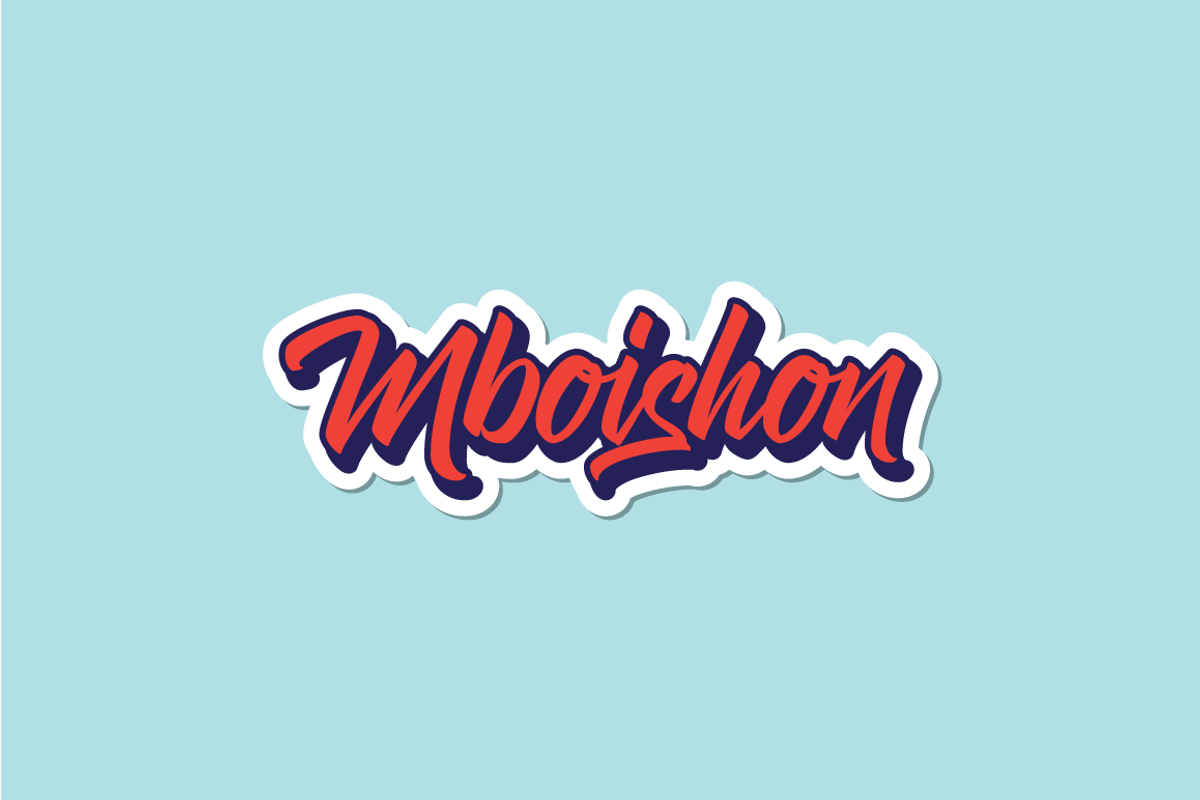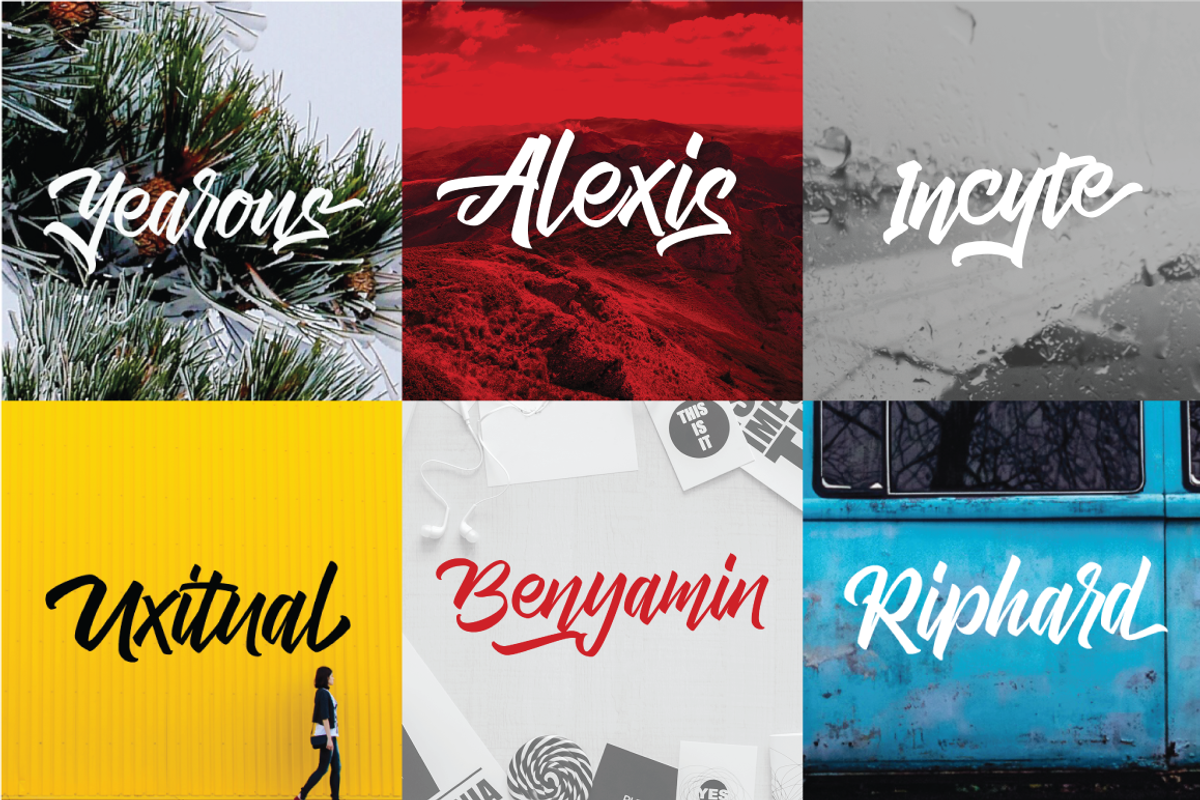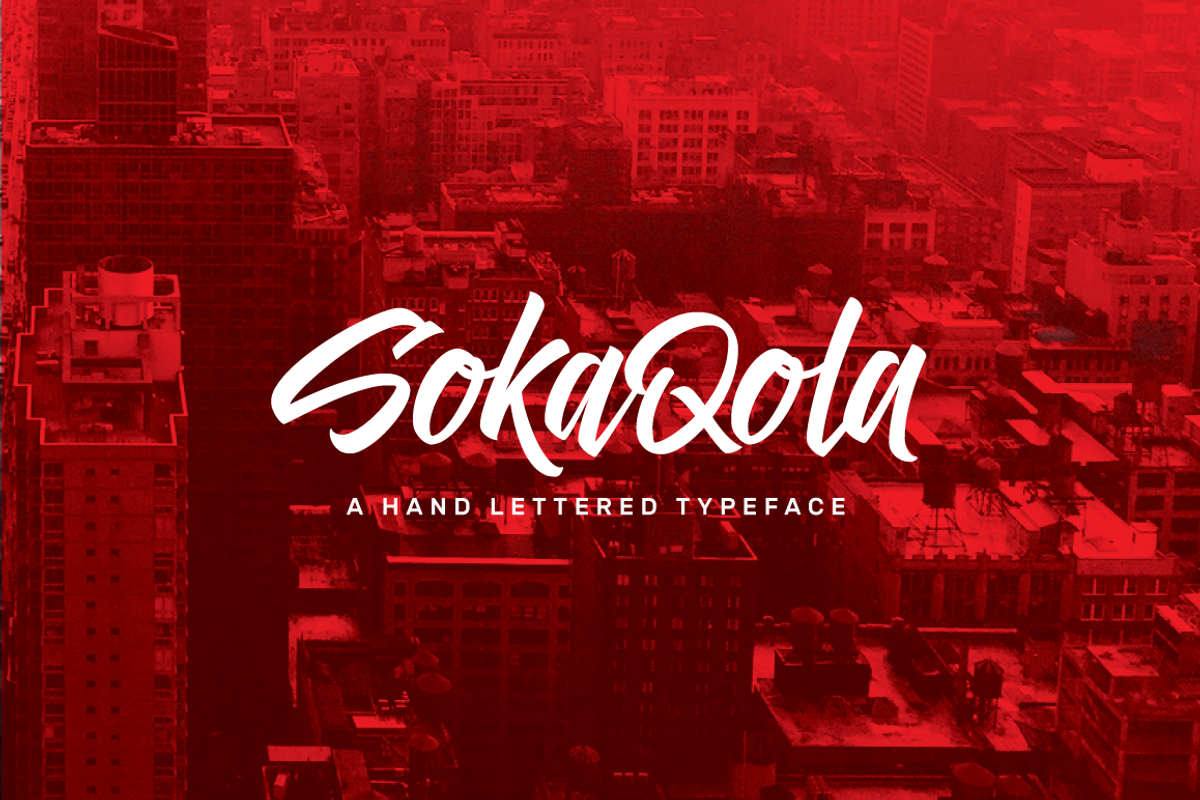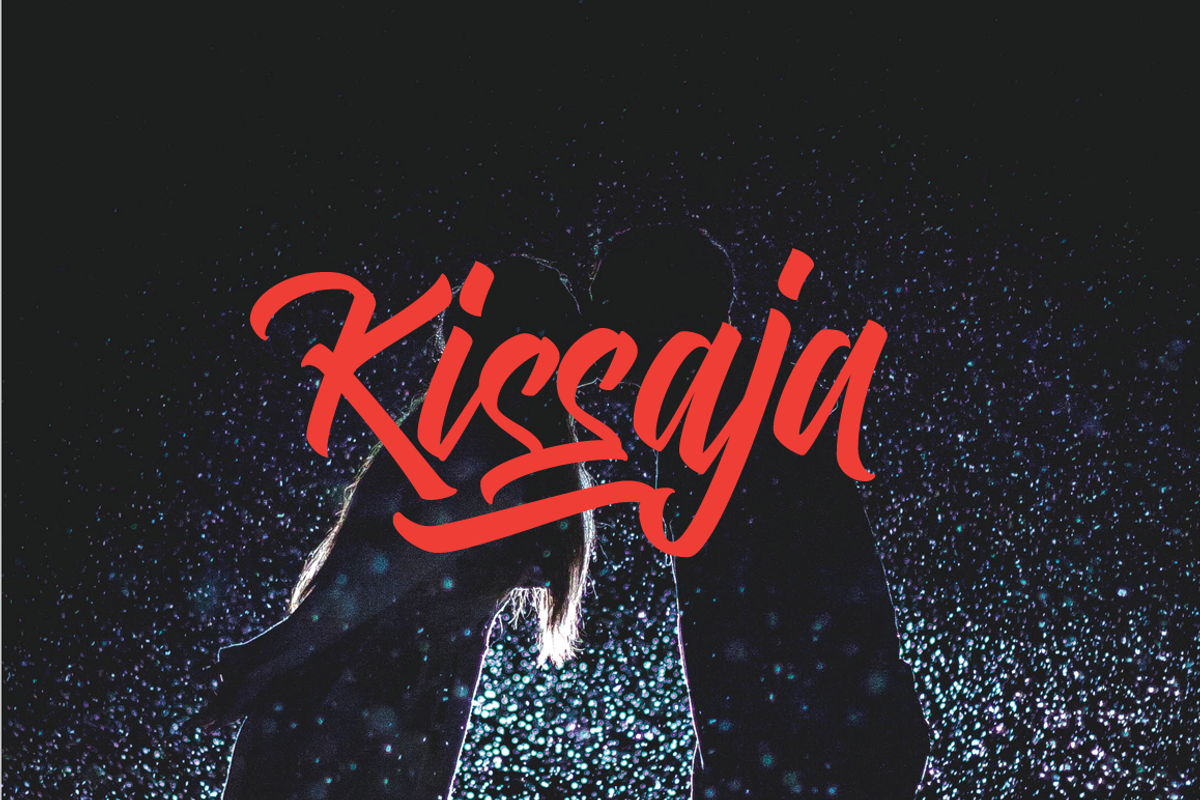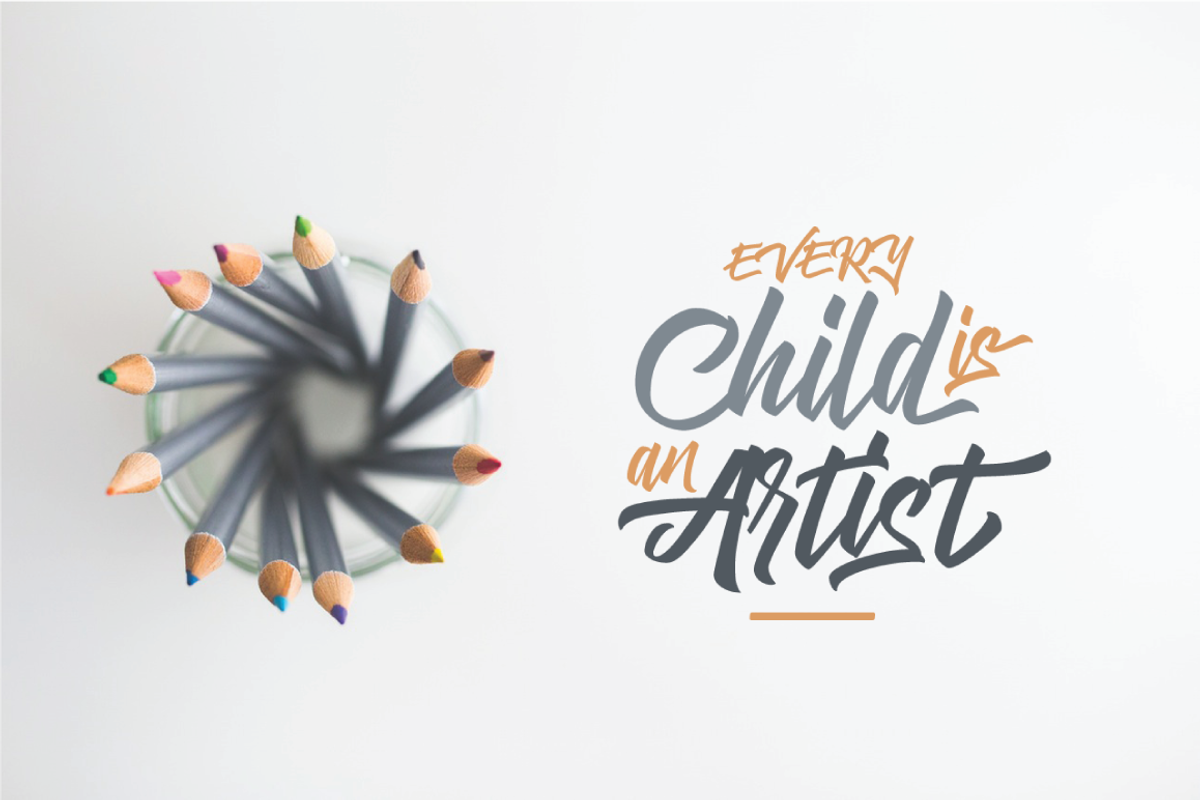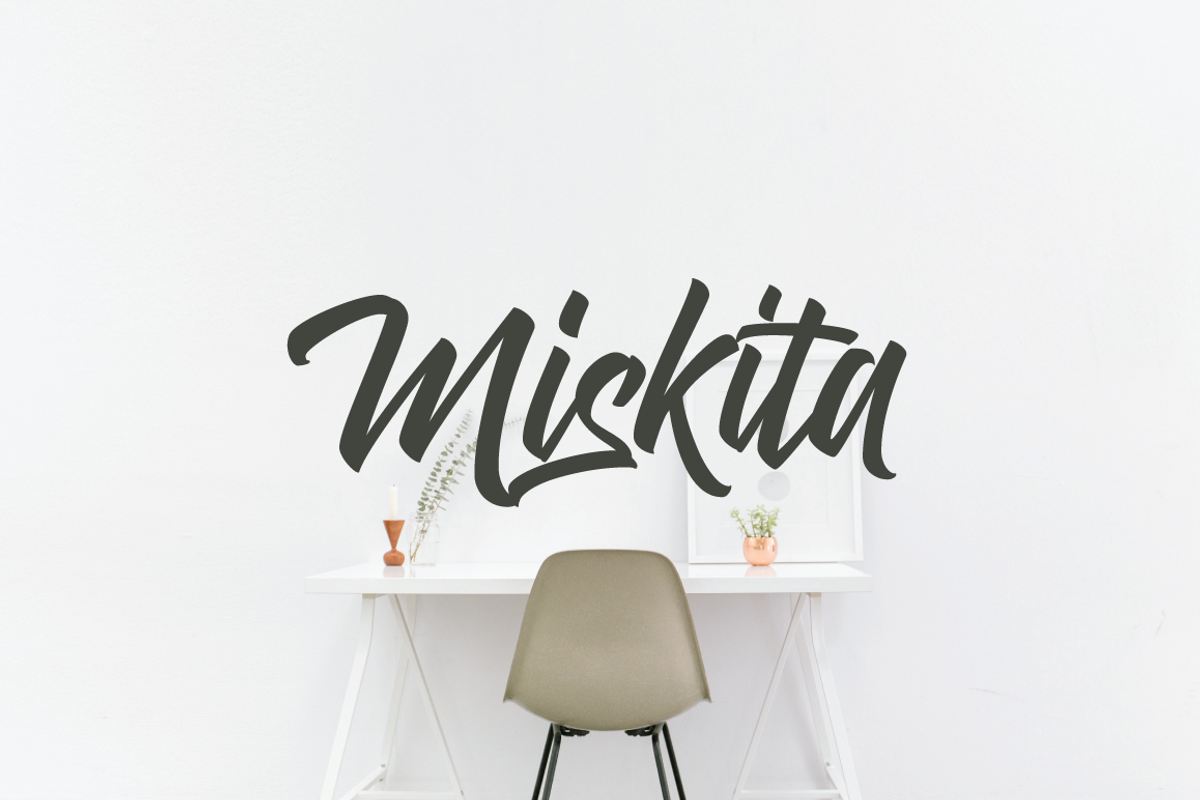
SokaQola Hand-lettered Font
SokaQola Hand-lettered Font by Typia Nesia is a font selected for branding, posters, packaging, typography.
- SokaQola comes with upper and lowercase Standard Characters, Punctuation, Numerals.
- And some glyphs variation of the OpenType Features such as Standard Ligatures, Stylistic Alternates, and Stylistic set.
Why SokaQola Hand-lettered Font is worth a look
SokaQola Hand-lettered Font by Typia Nesia fits naturally into Branding, posters, packaging, typography.